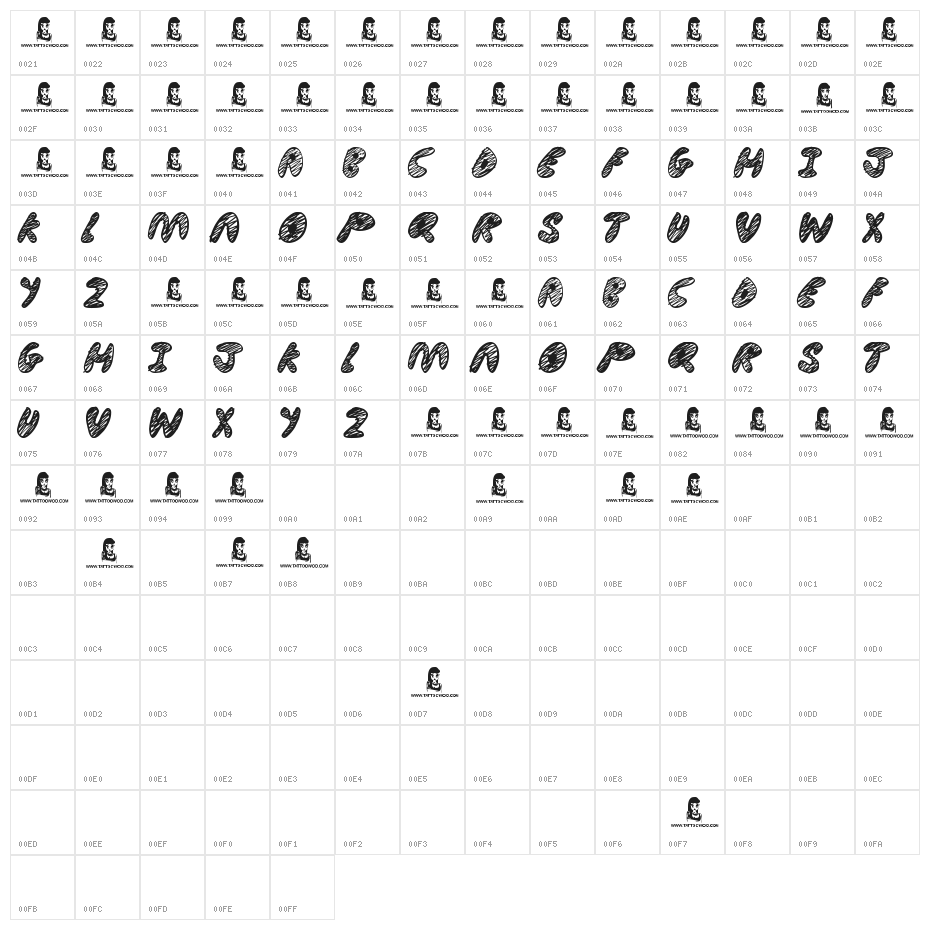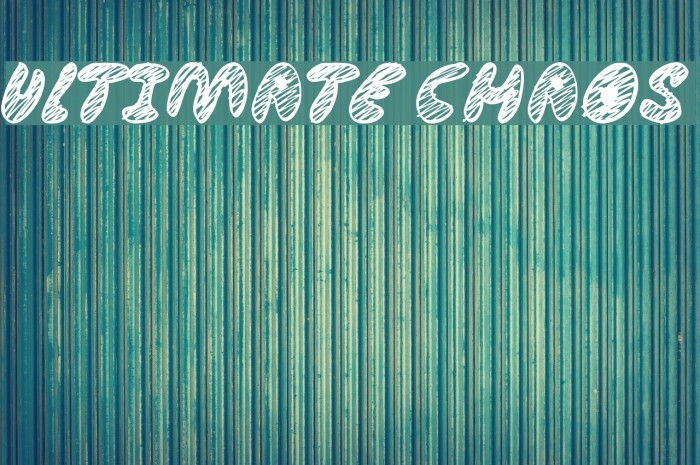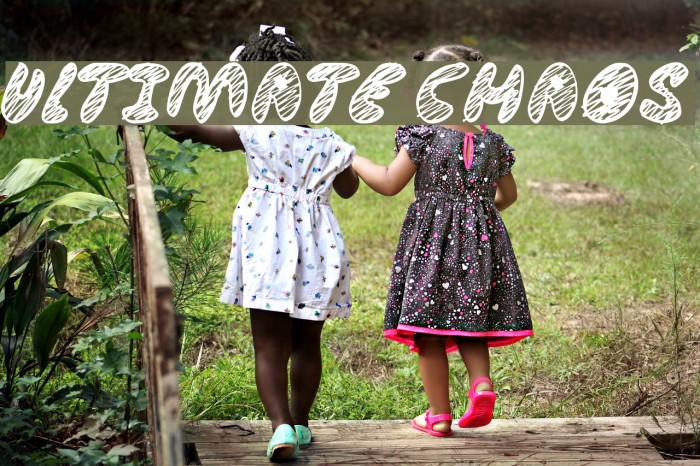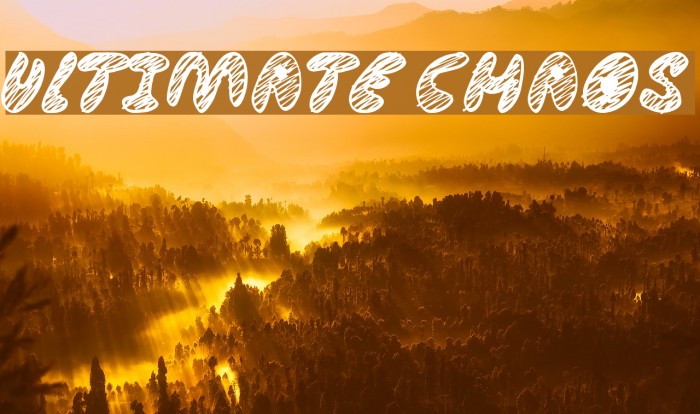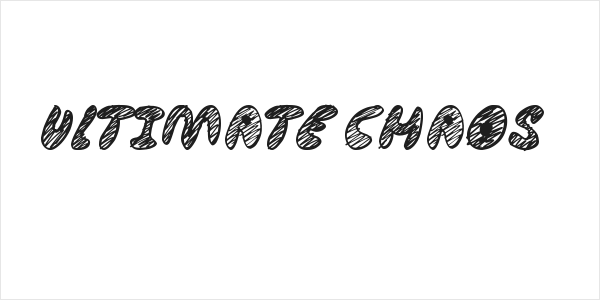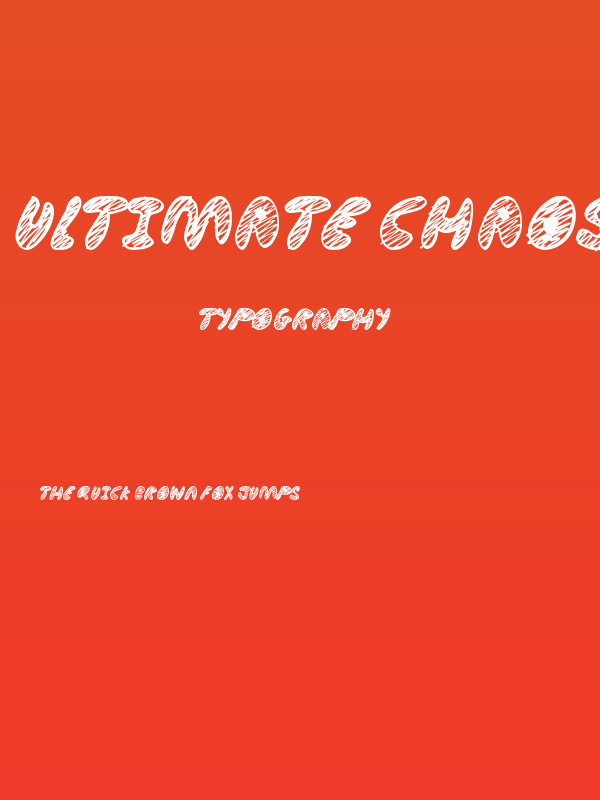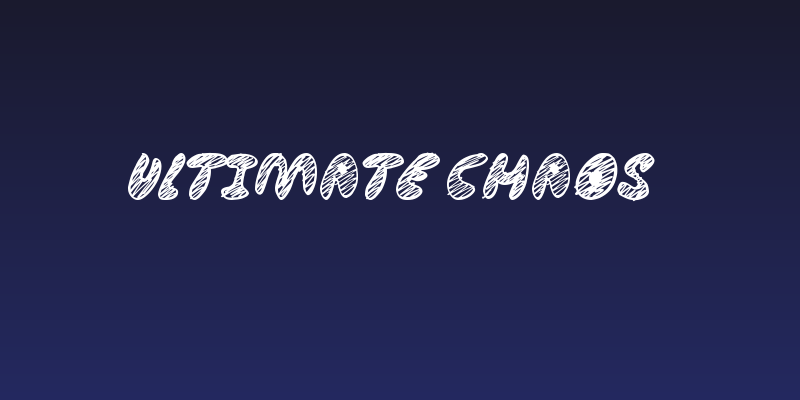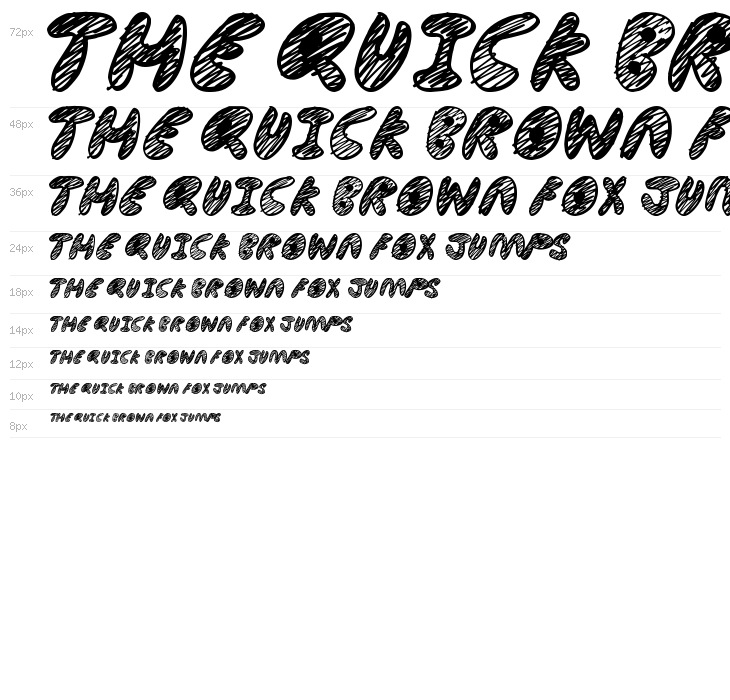
Ultimate Chaos Font
Ultimate Chaos Description
This font features a bold, hand-drawn style with a chaotic, scribbled texture that gives it a unique and dynamic appearance. The letters are uppercase and lowercase, with a consistent, thick stroke that adds to its boldness. The characters are slightly slanted, adding a sense of movement and energy. The overall design is playful and artistic, making it suitable for creative projects. The font's irregular lines and sketch-like quality make it stand out, providing a distinctive look that can capture attention.
| Proposed Projects | Ideal for posters, album covers, graffiti art, and creative branding. |